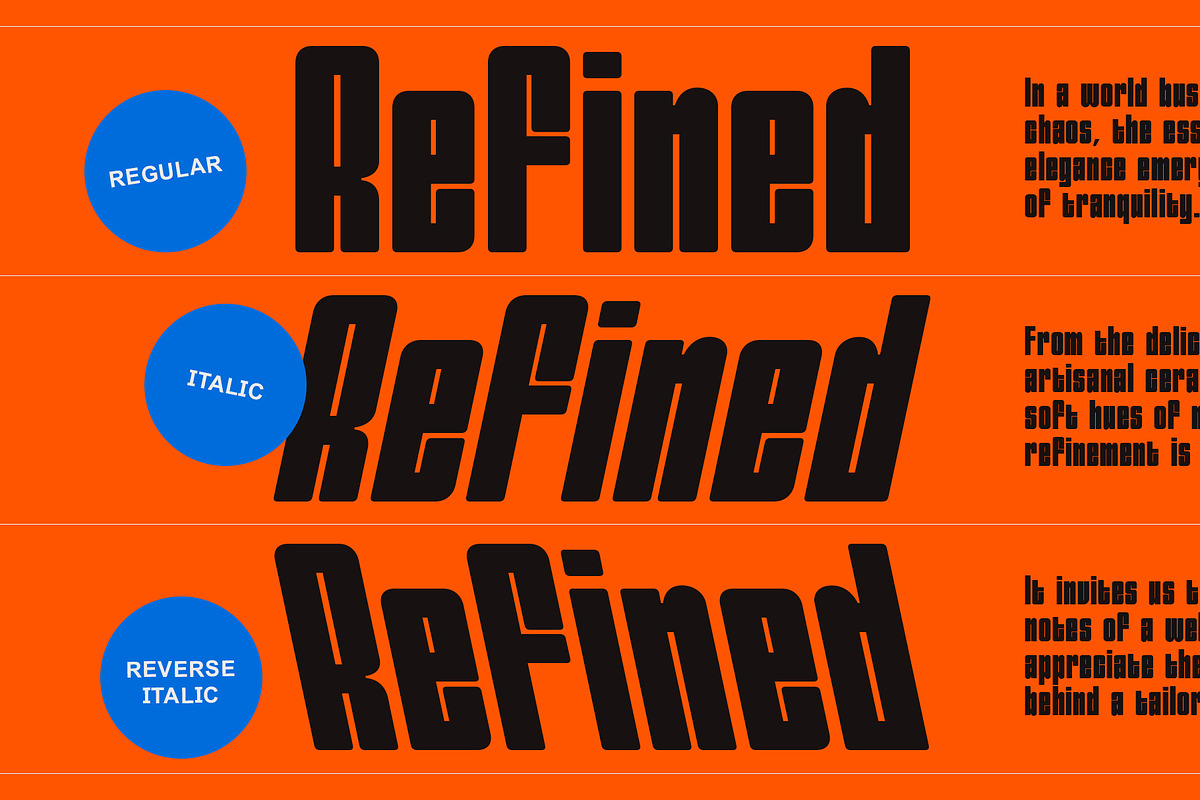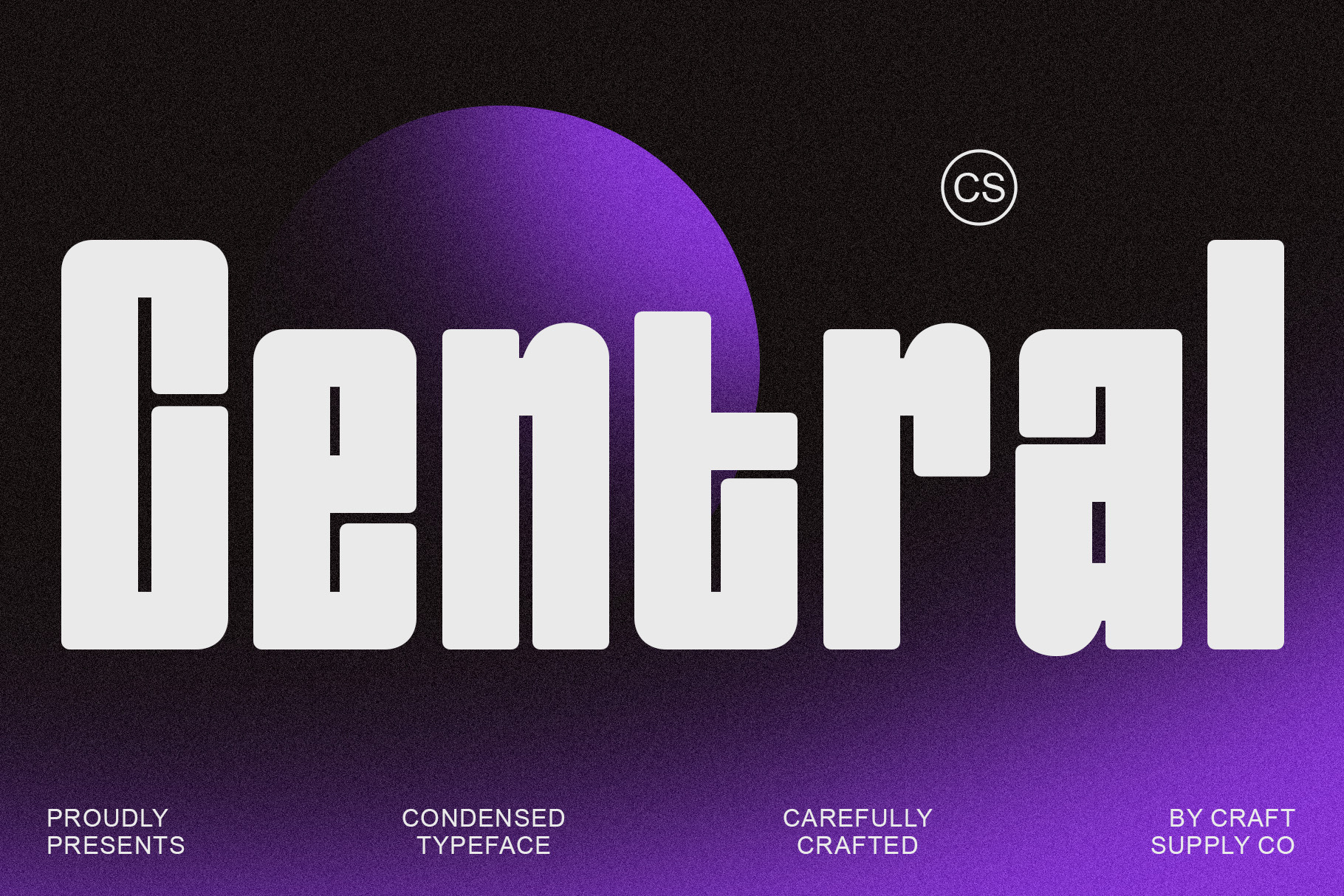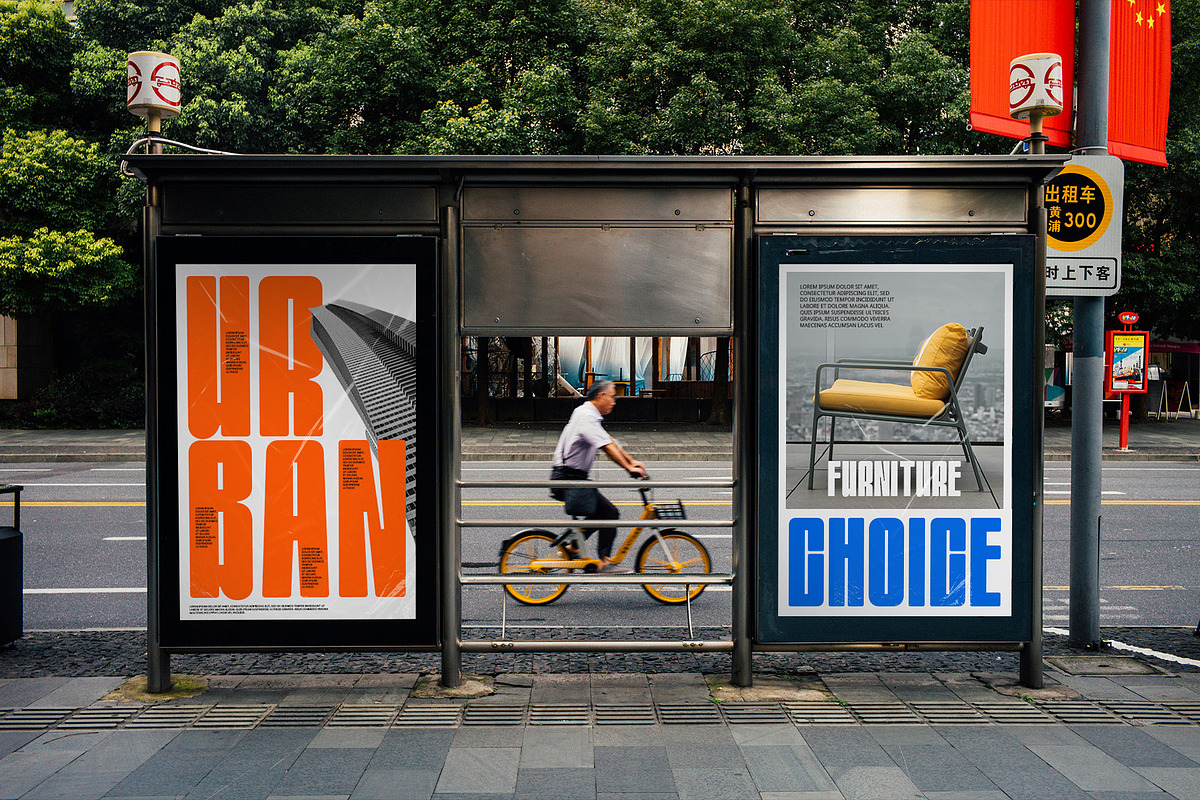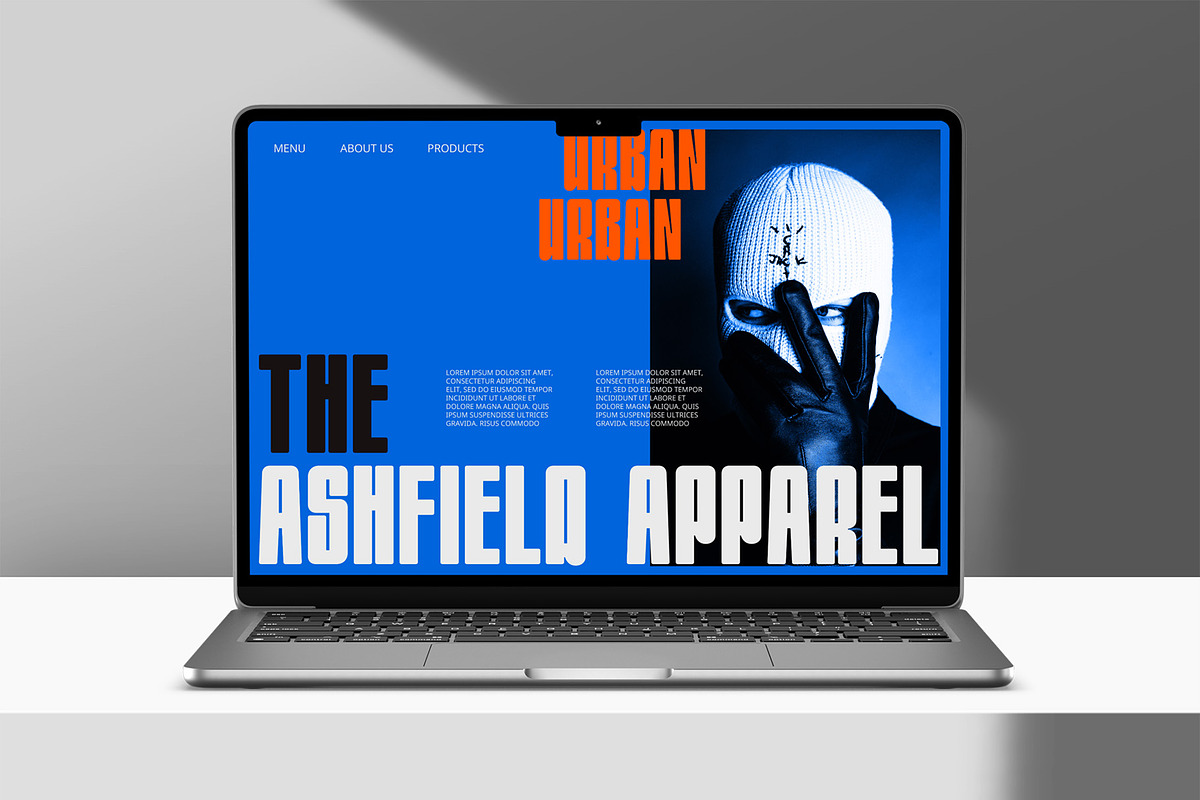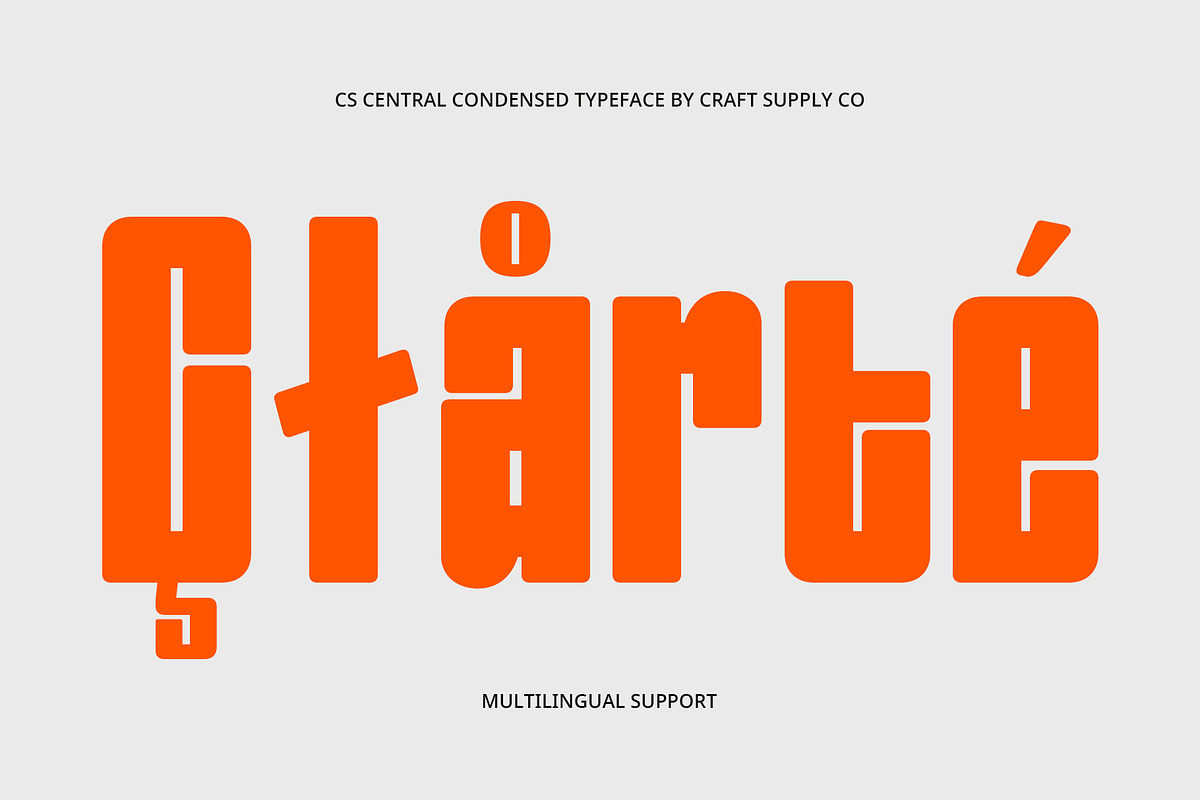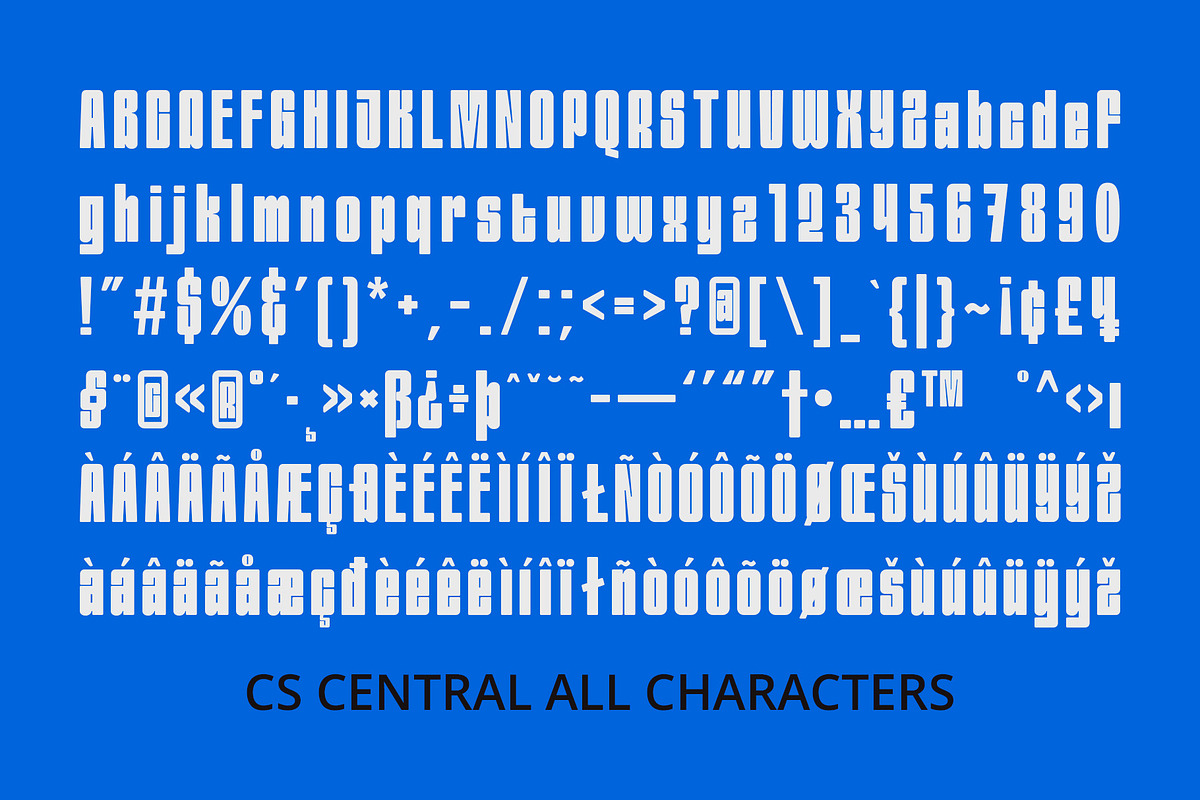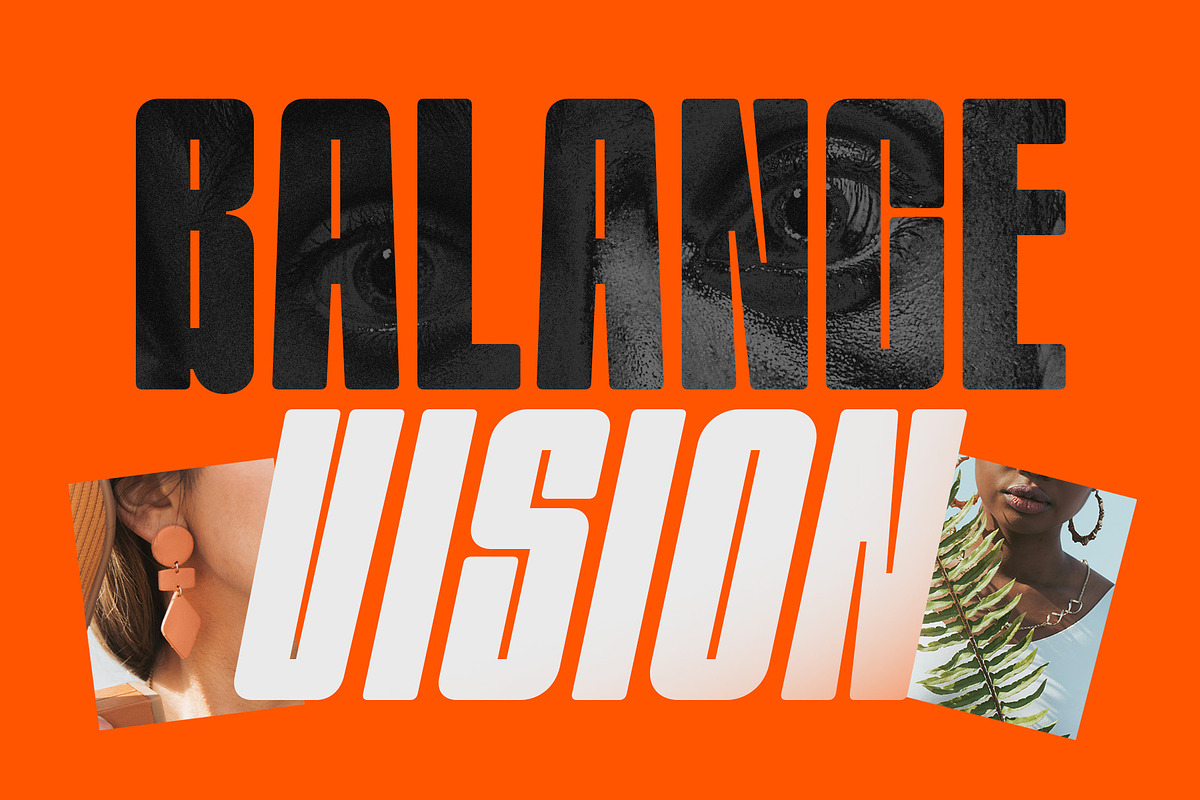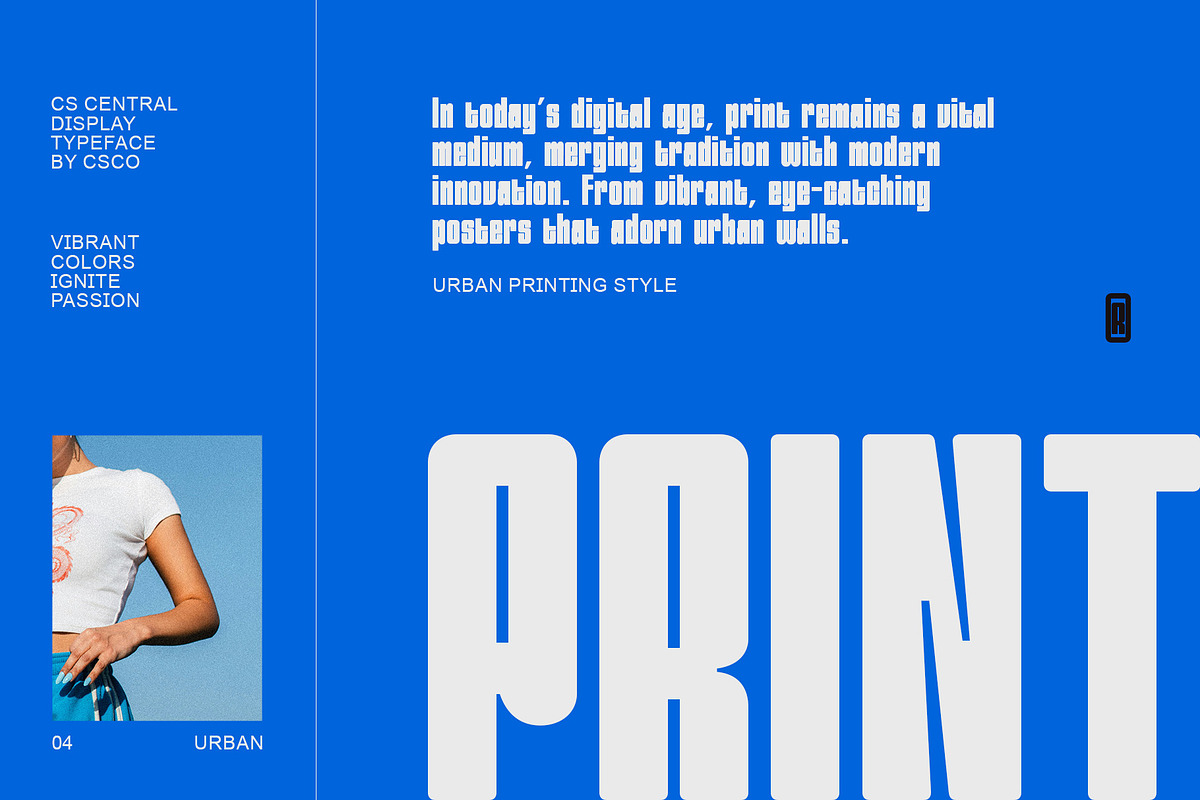
CS Central – Condensed Font
Strong and Assertive Design CS Central is a bold and condensed sans serif font that commands attention with its strong and assertive appearance. Its compact and streamlined design is crafted for versatility, allowing it to shine in various contexts, whether used in impactful headlines or clear body text. This font is engineered to deliver maximum impact with minimal space, making it a valuable addition to any designer’s toolkit.
Modern Professionalism Characterized by clean and minimalist lines, CS Central embodies a modern and professional impression that resonates with contemporary design sensibilities. Its straightforward aesthetic ensures that the message remains clear and focused, making it ideal for branding, advertising, and graphic design projects that require striking visual appeal. This font is perfect for businesses and creatives looking to convey a sense of reliability and innovation.
Enhanced Strength and Visibility The boldness of CS Central’s form significantly enhances its strength and visibility, allowing it to stand out in both print and digital media. Whether displayed on posters, websites, or promotional materials, this font captures attention effectively, ensuring that your message is seen and remembered. Its robust character makes it particularly suitable for high-impact applications where clarity and prominence are essential.